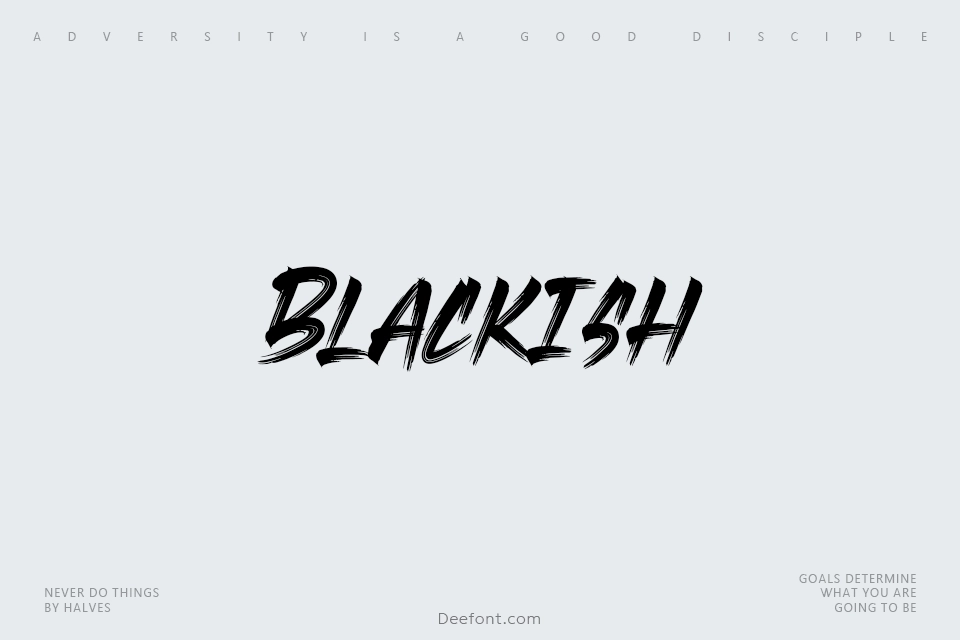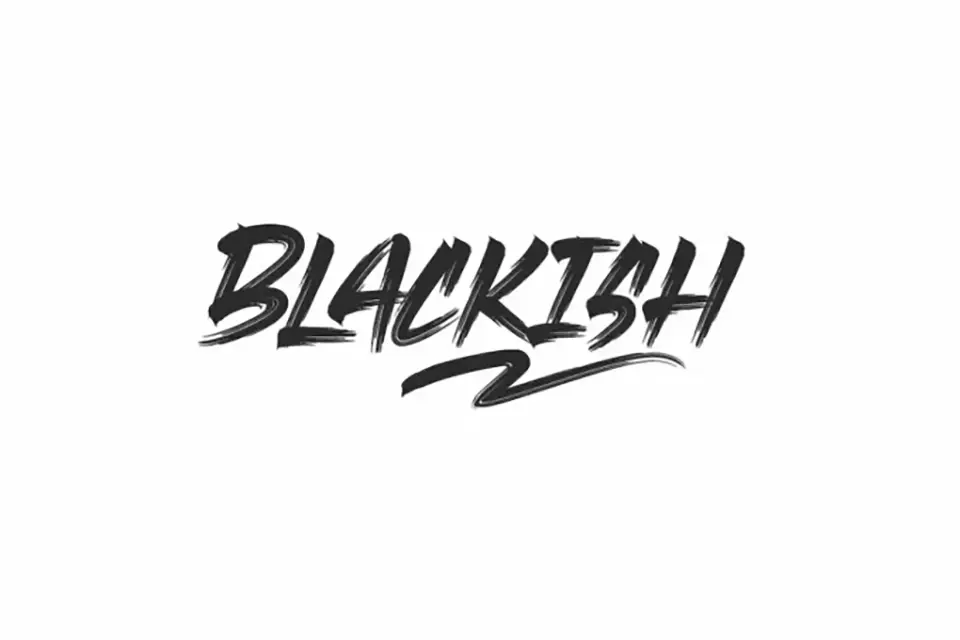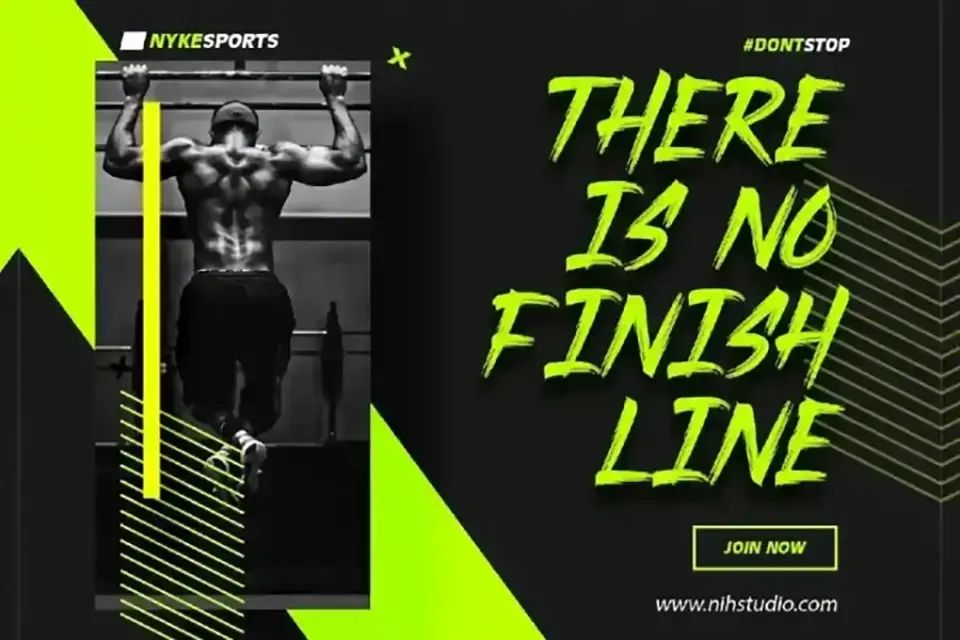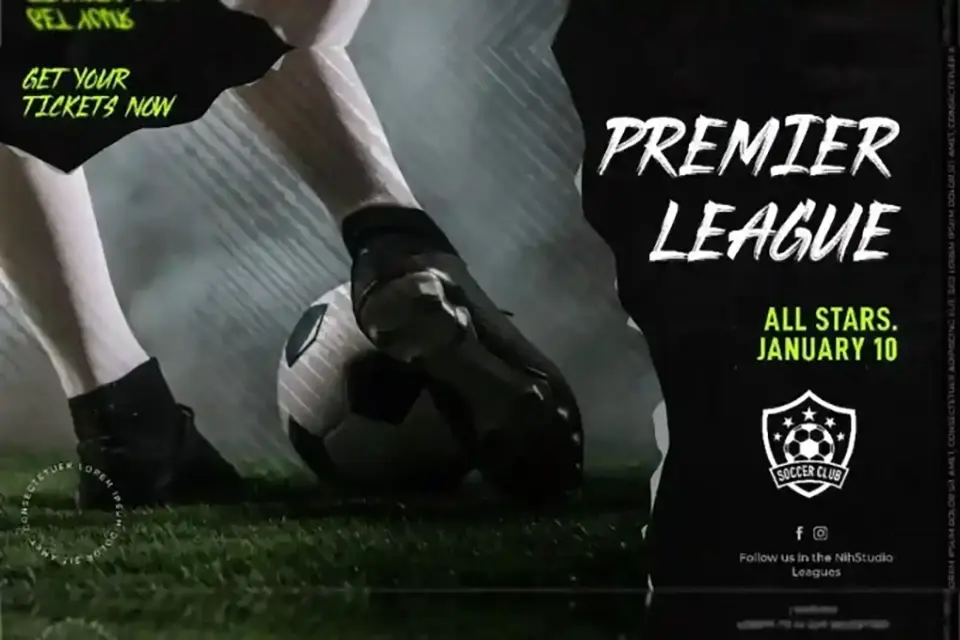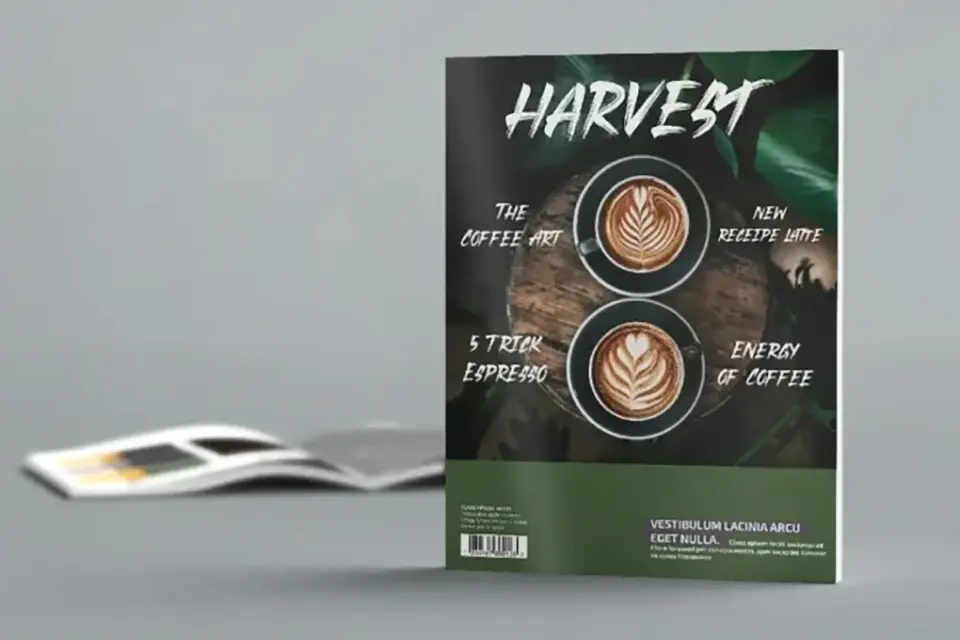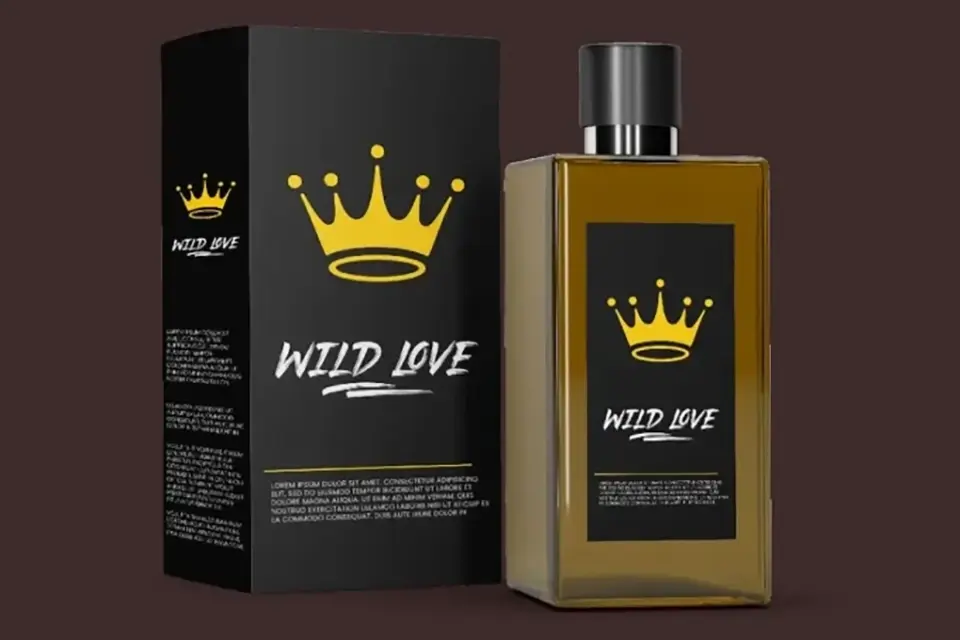
Blackish Font
Blackish is a striking brush script font created by NihStudio with a bold, hand-drawn character and rough textured aesthetic. This decorative typeface features irregular stroke widths and organic letterforms that evoke a natural, artistic paintbrush quality. Perfect for branding, logos, posters, and creative designs, Blackish carries a mysterious, modern, and urban vibe that works exceptionally well for entertainment, music, and lifestyle projects. With its unique dark and energetic personality, this font brings dramatic flair to headlines and eye-catching typography applications.